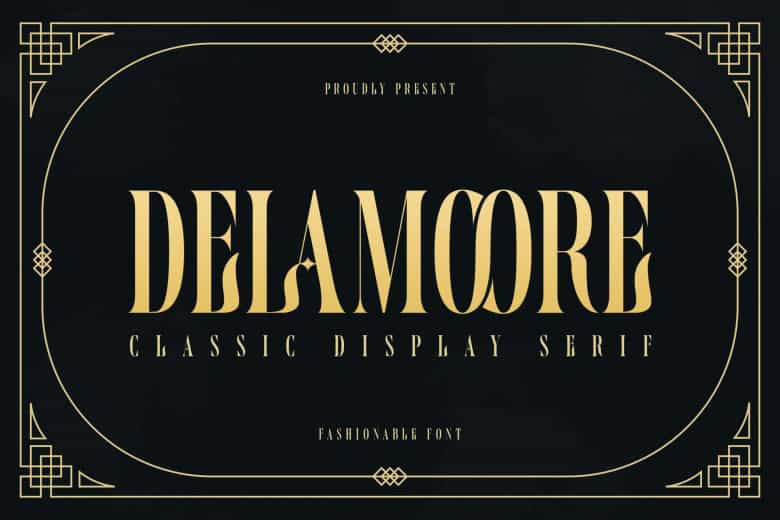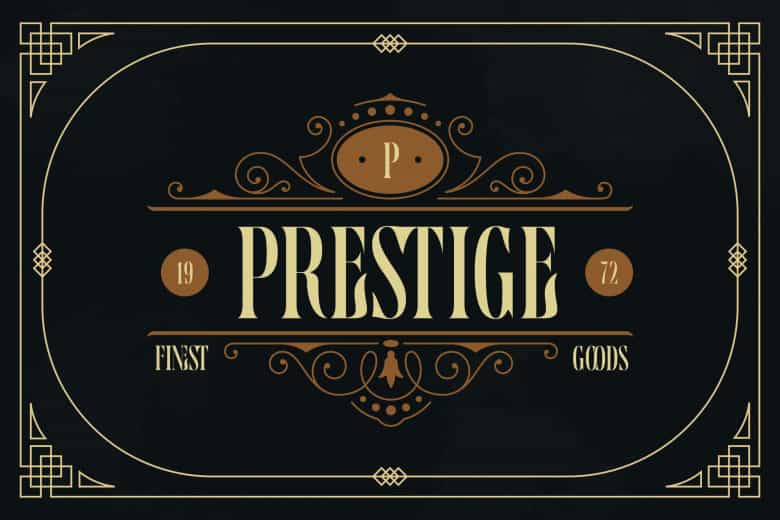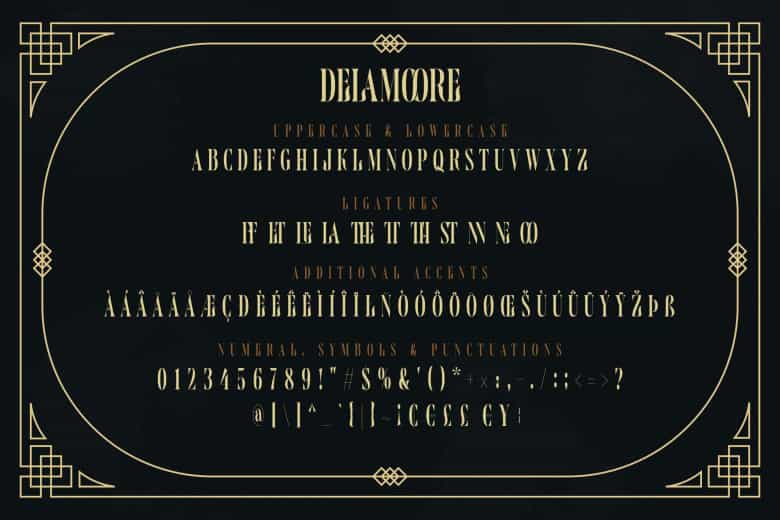
Delamoore Font is an elegant display serif typeface with a vintage aesthetic, perfect for elevating the appearance of your brand. Support for multiple languages and distinctive thematic ligatures help complete this collection inspired by decorative arts movement.